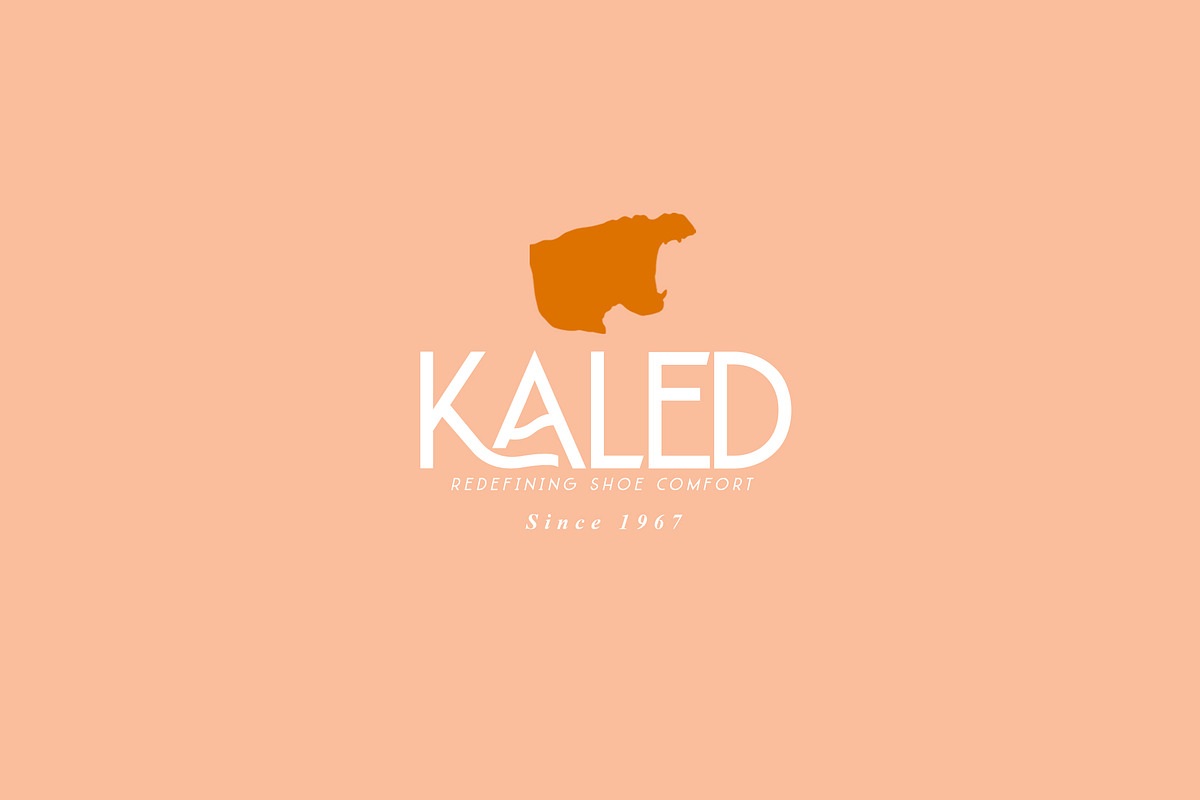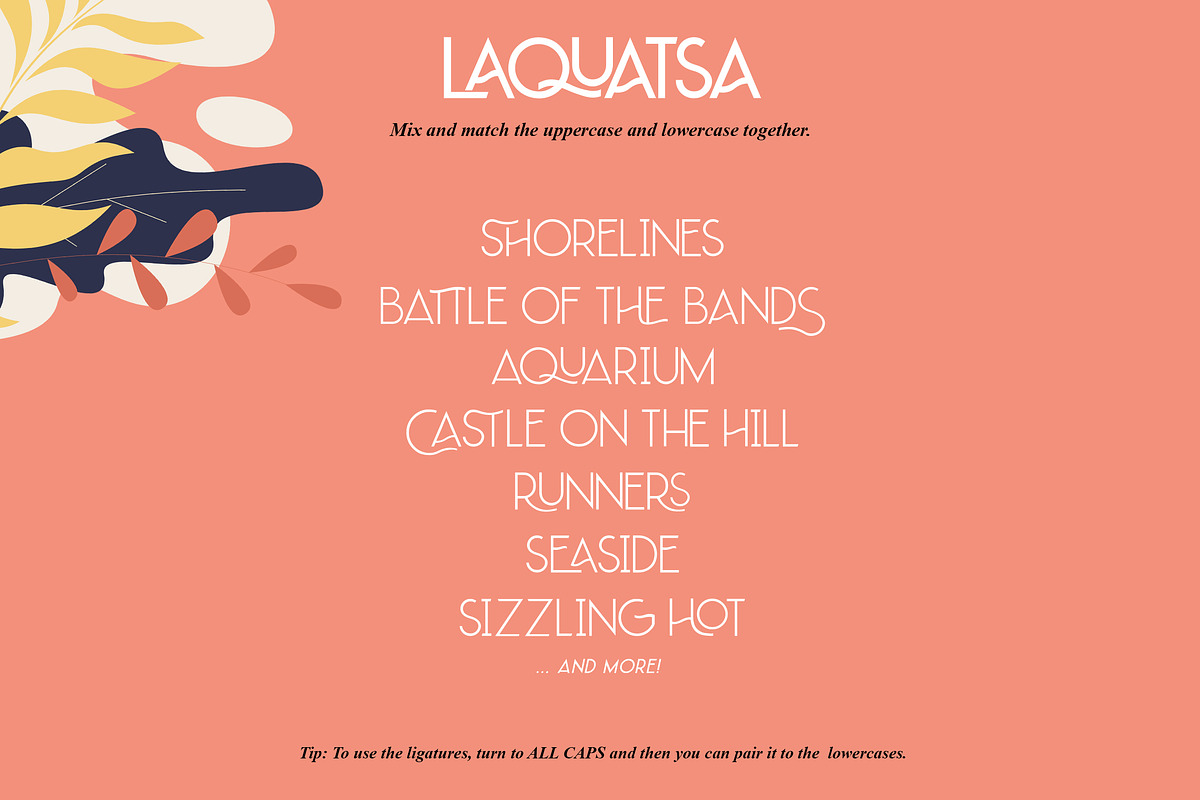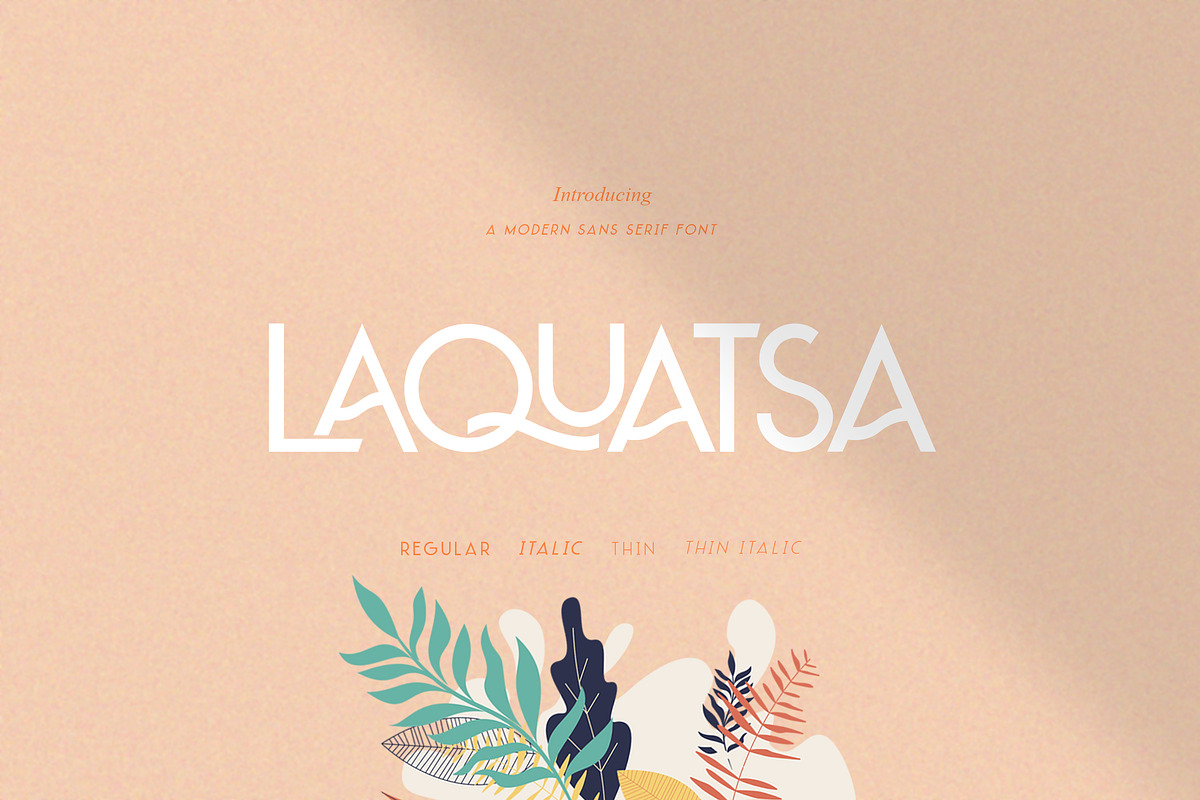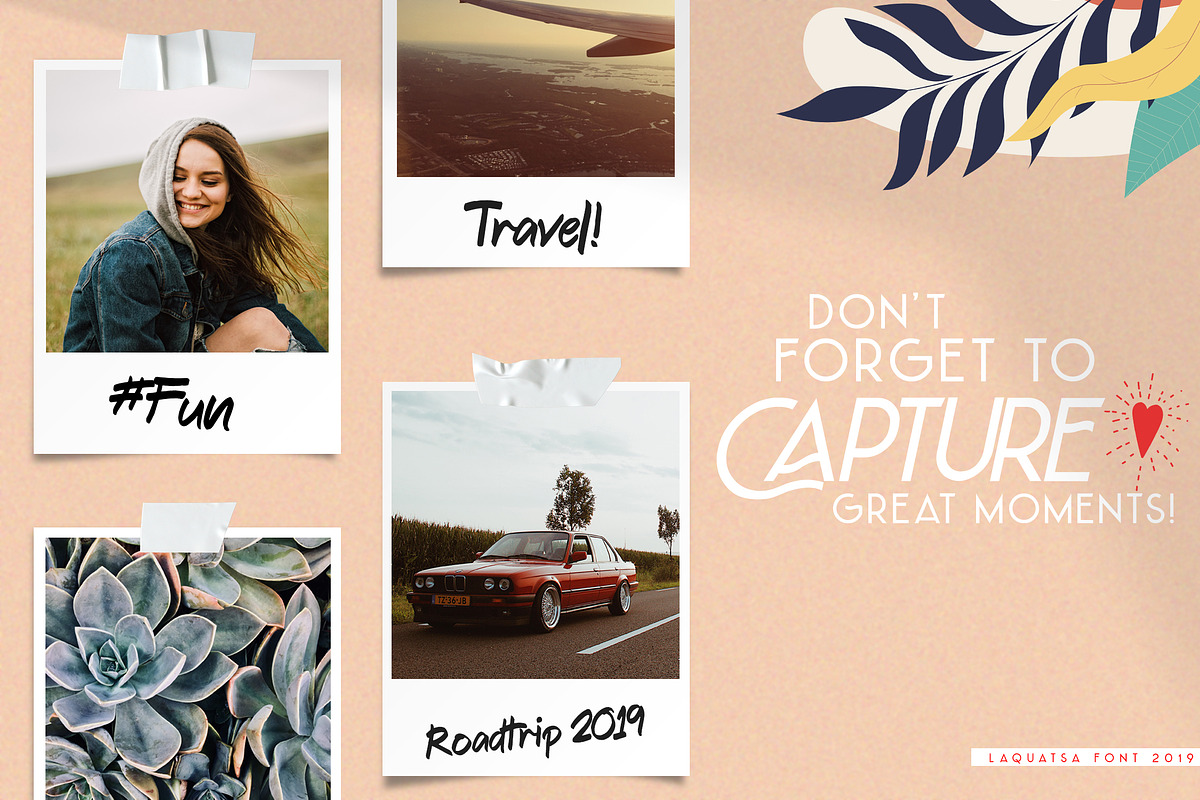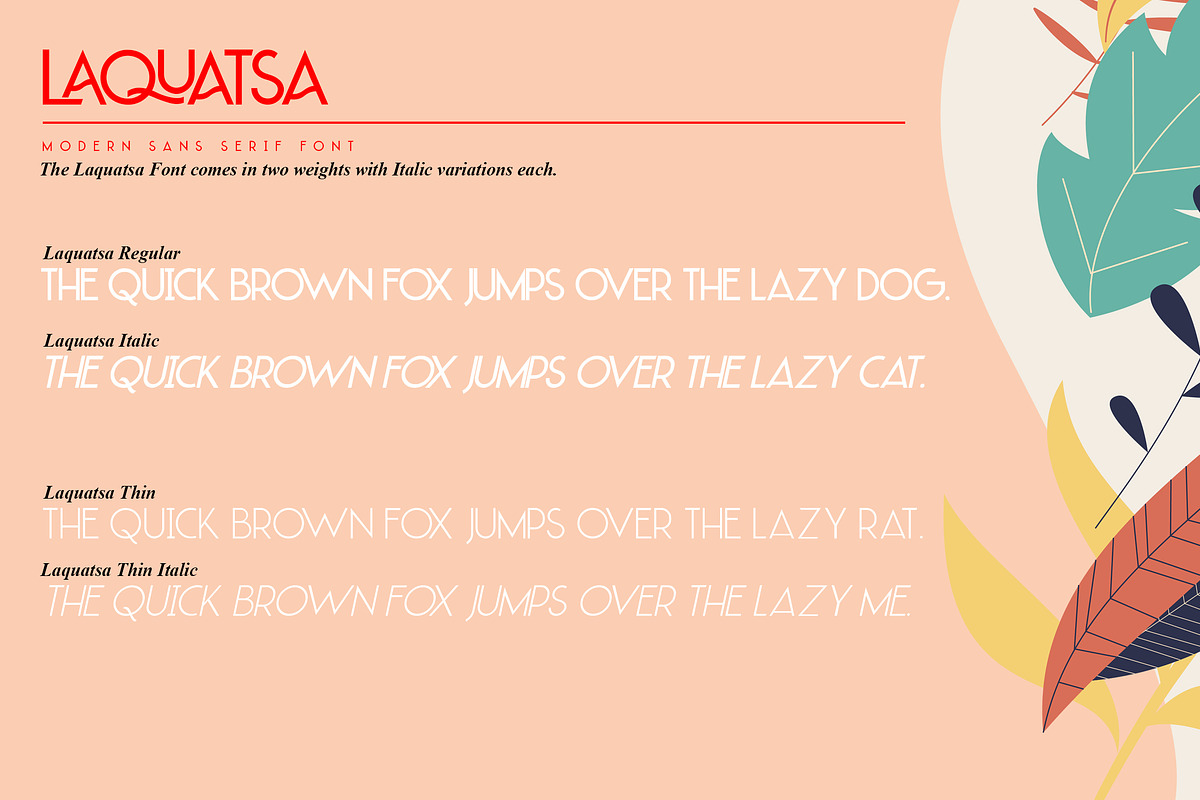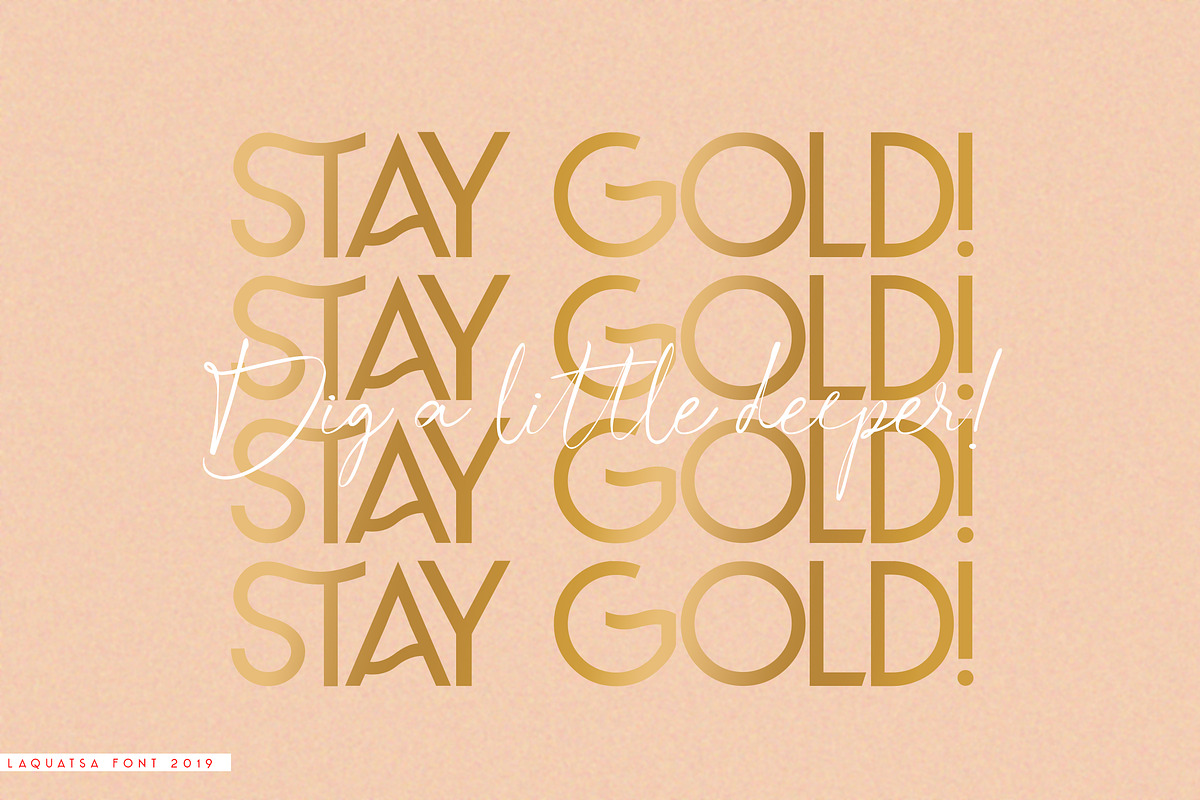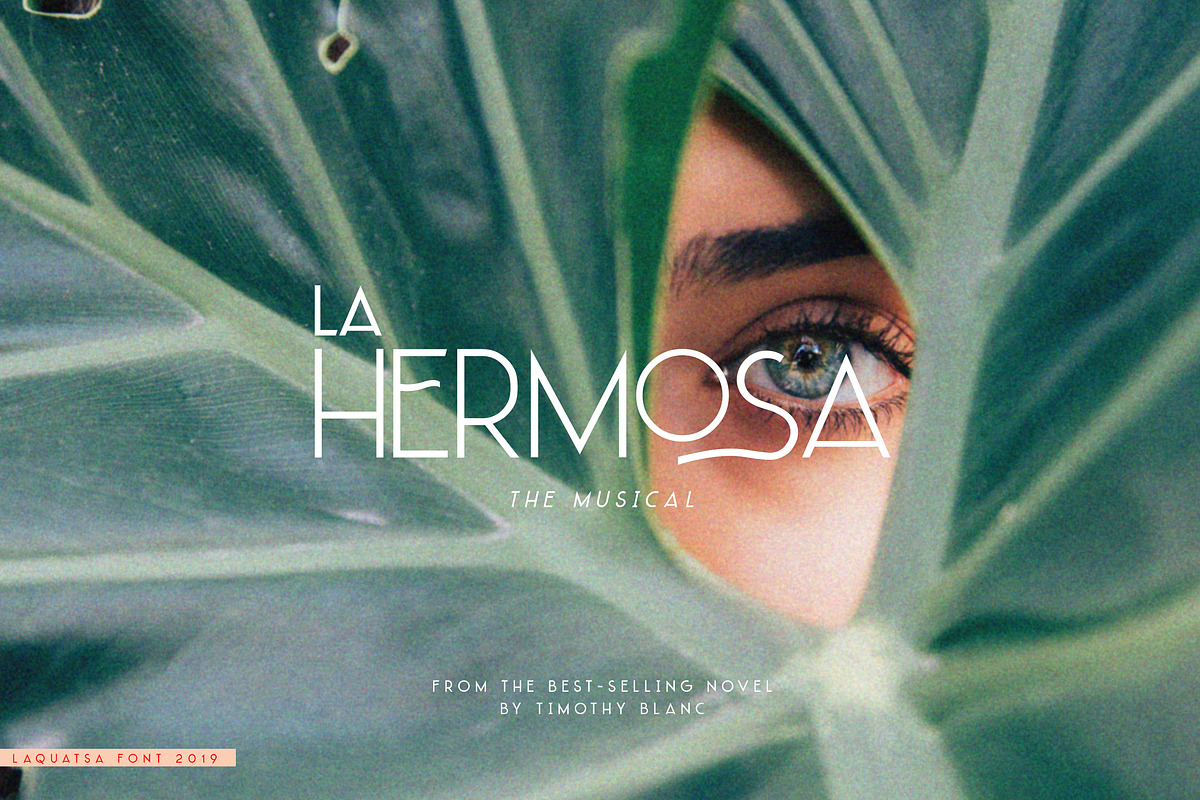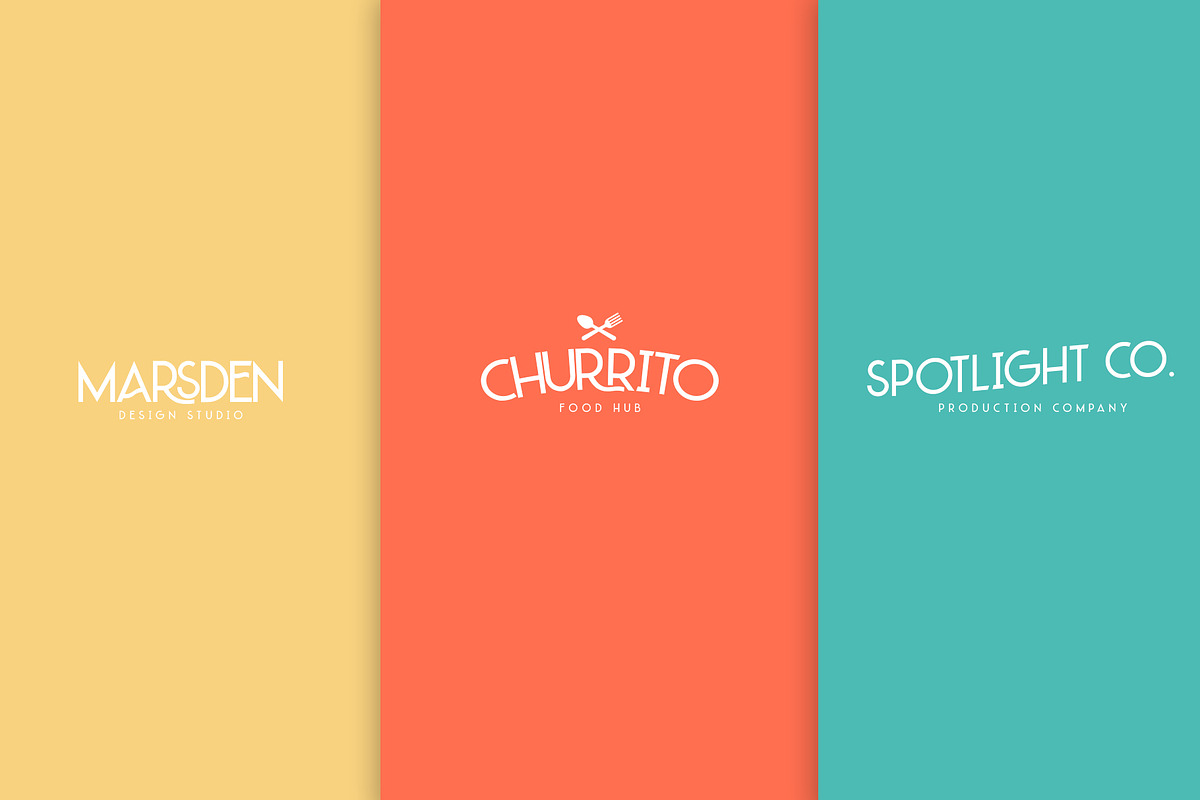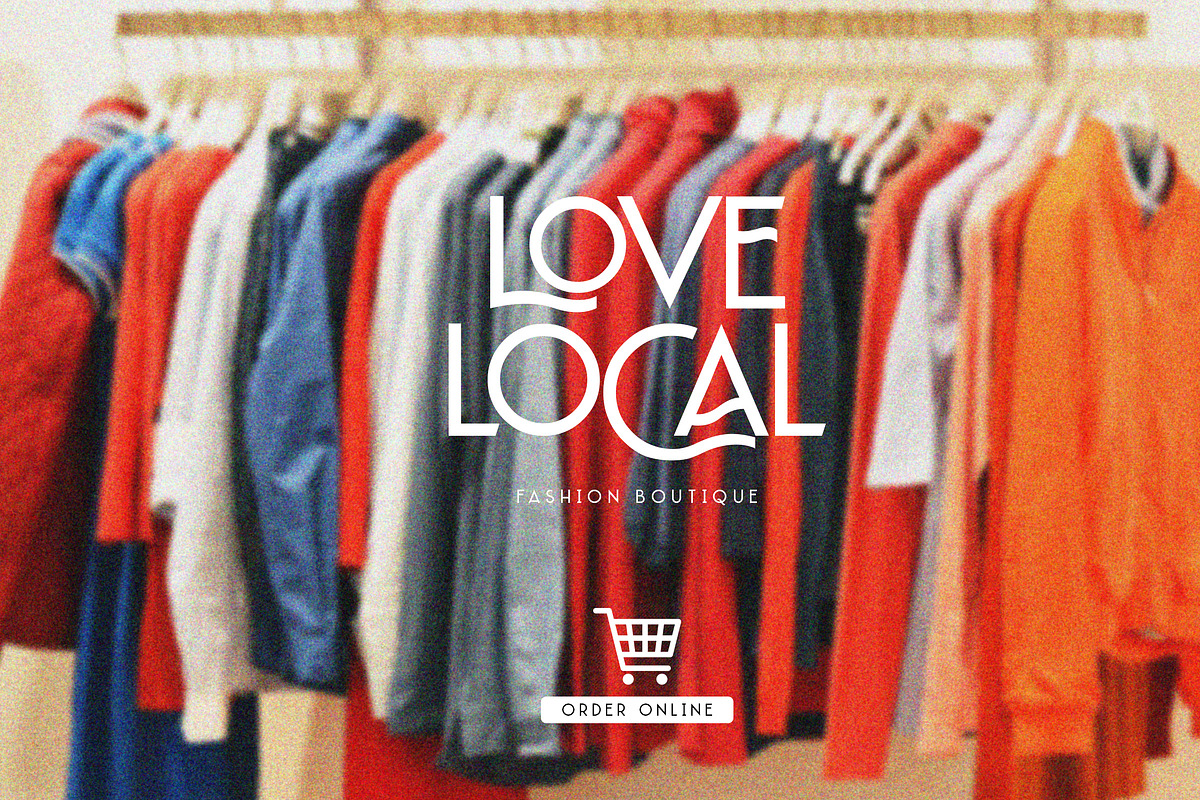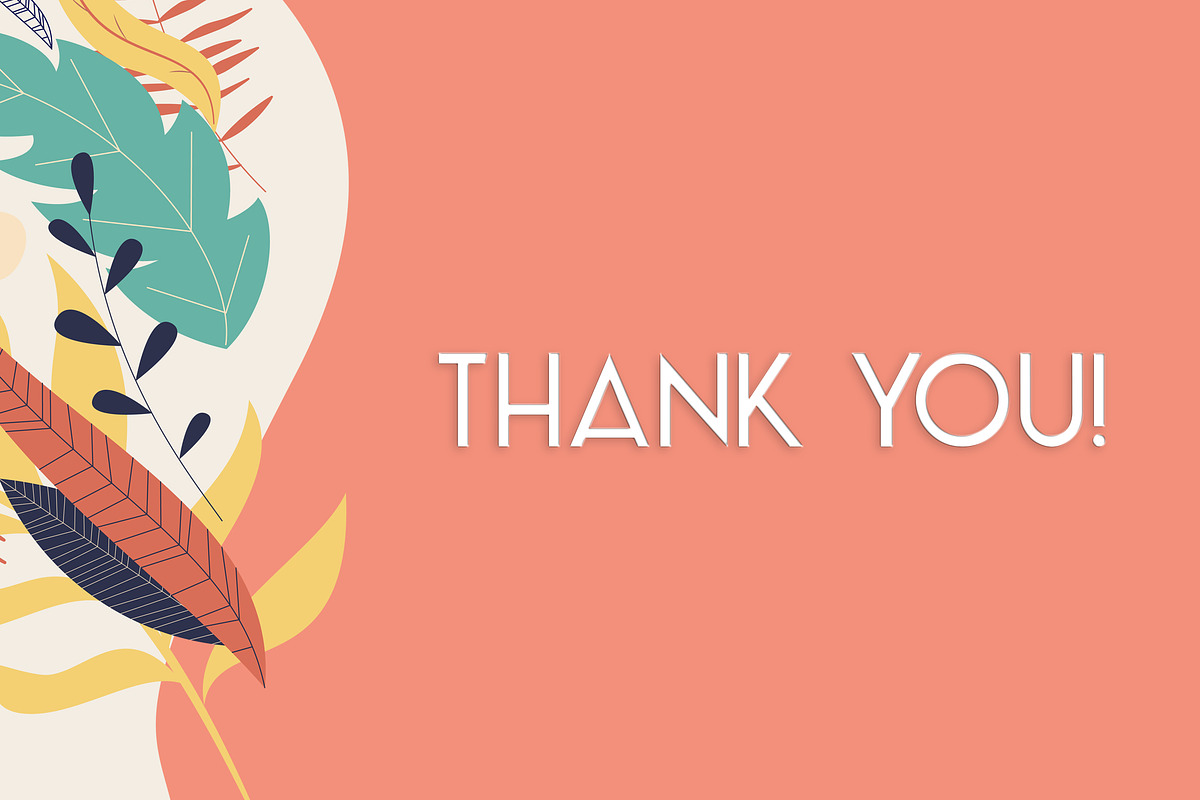
Laquatsa | Modern Sans Serif
Adore the brand new Laquatsa font!
Get your creative hands working with the new Laquatsa font! A Modern Sans Serif Font. This new font is perfect for a modern-vintage feel. The new Laquatsa font has a Sans Serif - Script feel. It can be a classic Sans Serif and can also give a smooth feel with its ligatures. Perfect for branding, websites, fashion, logo and identity, photography, occasion cards, business cards, company promotions, and many more!
The Laquatsa font offers two weights, regular and thin, both comes with Italic style.
Tip:
- To use the ligatures, keep the Caps Lock on and choose from this 24 options:
AA AS CA CH CC DS EA FE GE HA HE HO KA KO LA LO OS QU RS RU RR RO ST SH TT - You can mix and match the Uppercase and Lowercase with the ligatures.